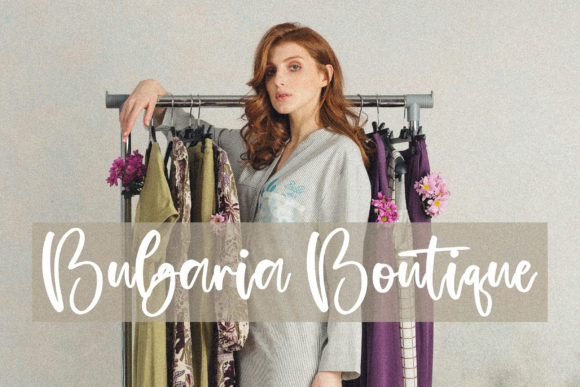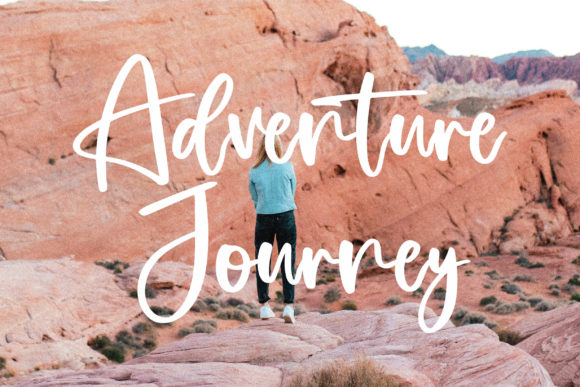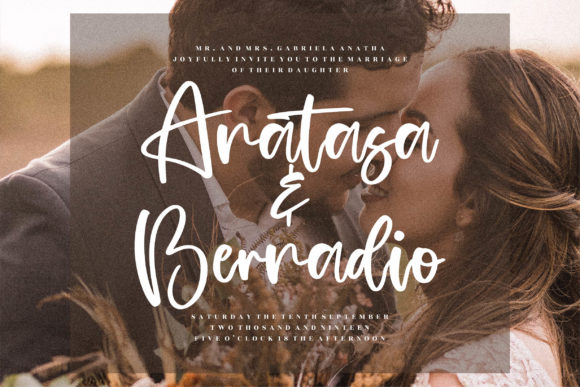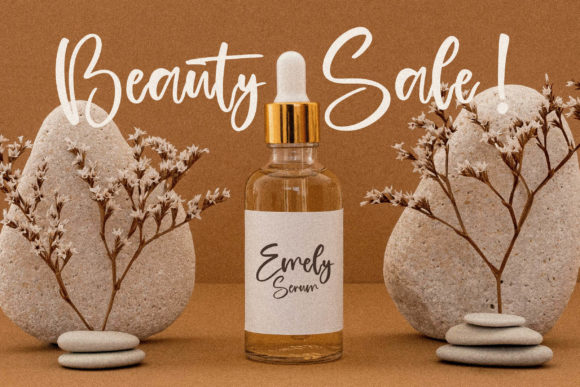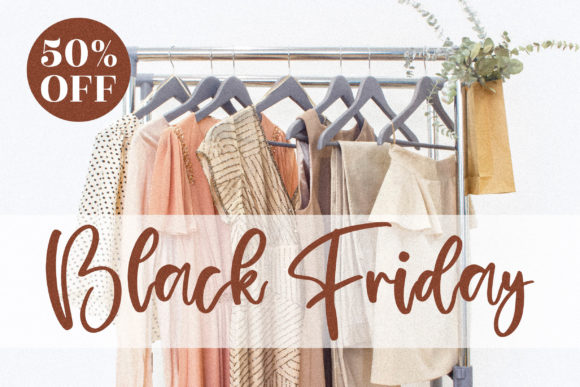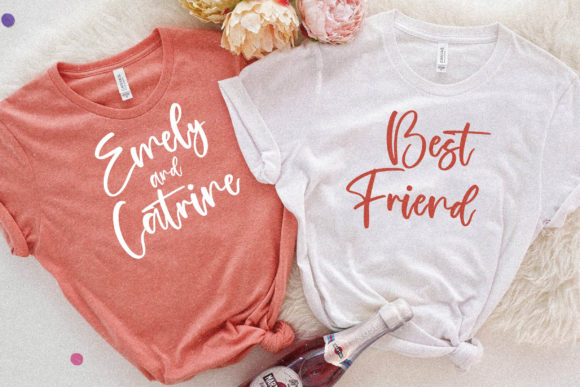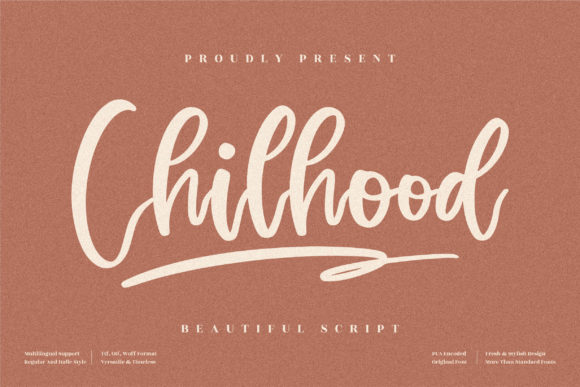
Introducing Chilhood Font: A Whimsical Script Font for Creative Expression
Are you a designer, crafty individual, or simply someone who loves to explore their creative side? Look no further! We’re excited to introduce Chilhood Font, a charming and relaxed script font that’s sure to become a valuable addition to your font library. With its lovely style and versatile theme, Chilhood Font is perfect for a wide range of creative projects, from digital designs to handmade crafts.
The Charm of Chilhood Font
Chilhood Font is a whimsical script font that exudes a sense of playfulness and carefree spirit. Its relaxed theme makes it an ideal choice for designers and crafters who want to add a touch of warmth and personality to their work. The font’s lovely style is characterized by smooth, flowing lines and a gentle, cursive feel that’s both elegant and approachable.
What Makes Chilhood Font So Special?
So, what sets Chilhood Font apart from other script fonts out there? Here are just a few reasons why this font is an incredible asset to your font library:
- Versatility: Chilhood Font is incredibly versatile, making it suitable for a wide range of creative projects, from digital designs to print materials, and even handmade crafts.
- Easy to Read: The font’s clear and flowing lines make it easy to read, even at smaller sizes, ensuring that your message gets across with clarity and style.
- Highly Legible: Chilhood Font is designed to be highly legible, making it perfect for body text, headings, and titles.
- Unique Character: The font’s unique character and whimsical feel set it apart from more traditional script fonts, adding a touch of personality to your designs.
Use Chilhood Font in Your Creative Projects
Chilhood Font is perfect for a wide range of creative projects, including:
- Digital Designs: Use Chilhood Font in your digital designs, such as social media graphics, blog posts, and website headers, to add a touch of whimsy and personality.
- Print Materials: Add Chilhood Font to your print materials, such as brochures, flyers, and posters, to create eye-catching and engaging designs.
- Handmade Crafts: Use Chilhood Font in your handmade crafts, such as card making, scrapbooking, and journaling, to add a personal touch.
Tips for Using Chilhood Font Effectively
Here are a few tips for using Chilhood Font effectively in your creative projects:
- Pair with Other Fonts: Pair Chilhood Font with other fonts to create visual interest and add depth to your designs.
- Experiment with Colors: Experiment with different colors and textures to add an extra layer of personality to your designs.
- Play with Size: Play with font size to create visual hierarchy and emphasize important elements in your designs.
In conclusion, Chilhood Font is a whimsical script font that’s sure to become a valuable addition to your font library. With its lovely style, relaxed theme, and versatile nature, Chilhood Font is perfect for designers, crafters, and anyone looking to add a touch of personality to their creative projects. So why not give Chilhood Font a try today and see how it can elevate your designs?
Whether you’re a seasoned designer or just starting out, Chilhood Font is an excellent choice for anyone looking to add a touch of whimsy and creativity to their work. So go ahead, get creative, and see what amazing things you can create with Chilhood Font!